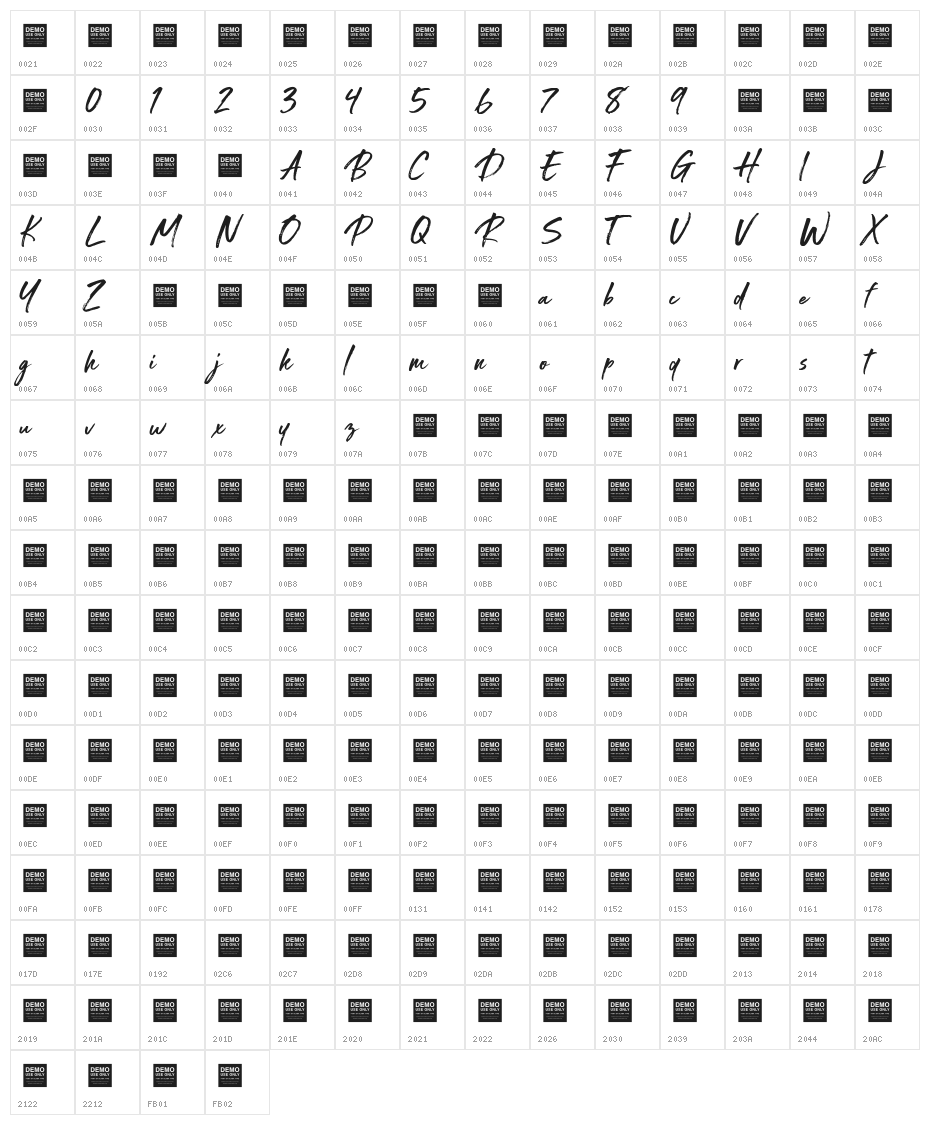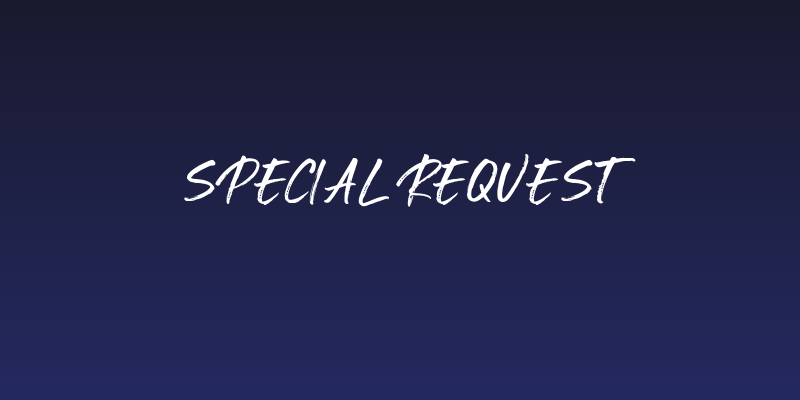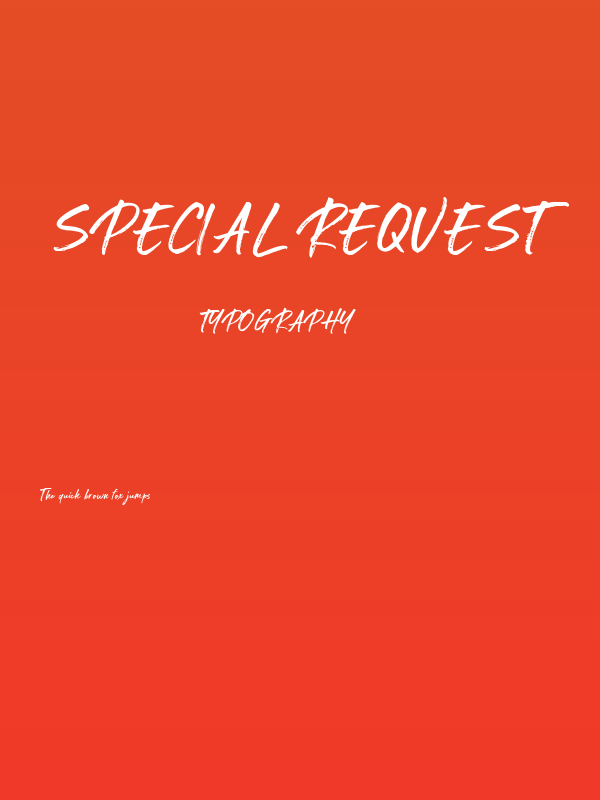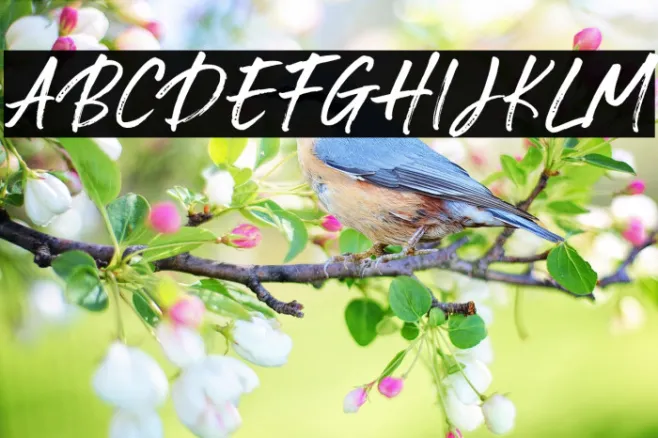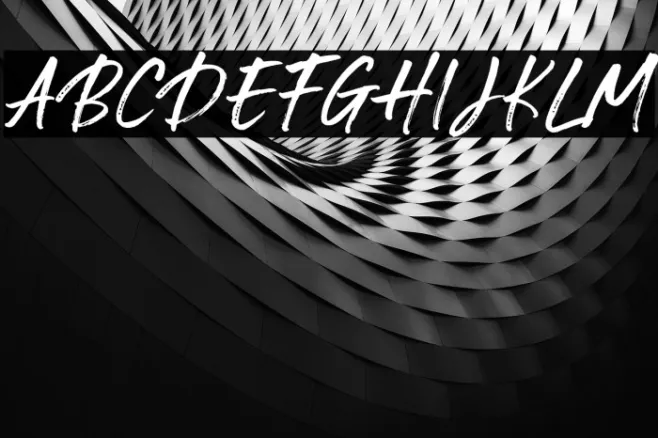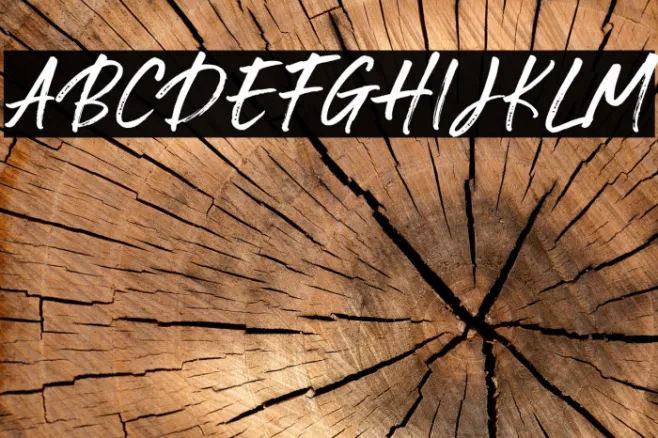
Special Request Font
Special Request Description
This font exhibits a dynamic and energetic handwritten style, characterized by its bold and expressive strokes. The letters have a natural flow, mimicking the fluidity of a brush pen. Each character is crafted with varying thickness, adding a sense of movement and personality. The uppercase letters are slightly more structured, while the lowercase letters maintain a casual and relaxed appearance. The numbers follow the same stylistic approach, ensuring consistency across the typeface. This font is ideal for projects that require a personal touch or a creative flair.
| Proposed Projects | Ideal for branding, invitations, posters, and social media graphics where a personal and artistic touch is desired. |